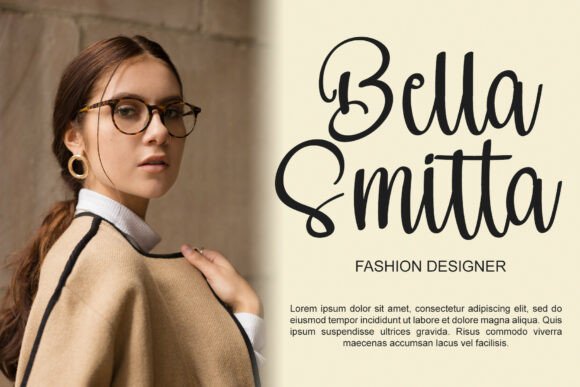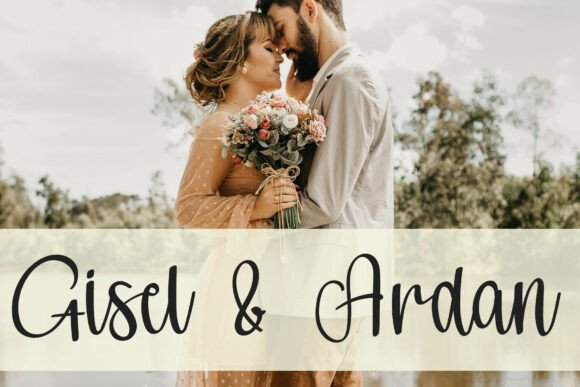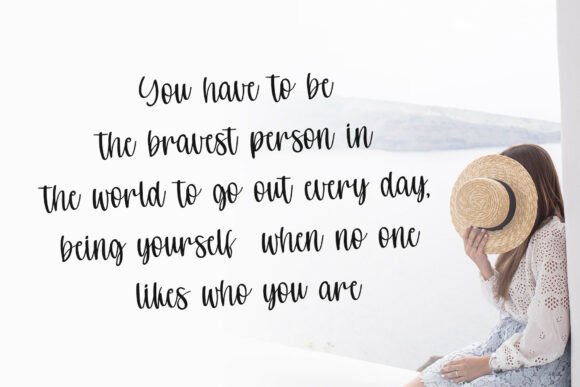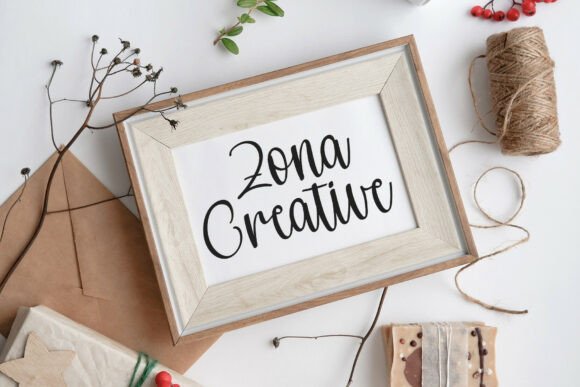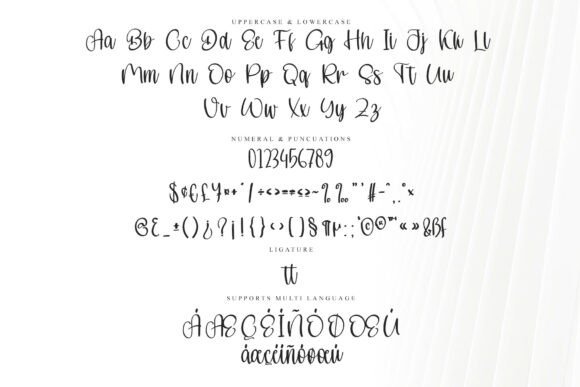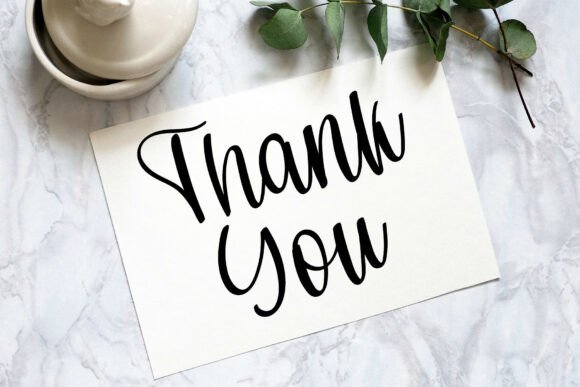
Introducing Buddy Signature Font: Elevate Your Designs with Elegance and Timelessness
In the world of typography, few fonts manage to strike a balance between elegance and boldness. Buddy Signature Font is one such exceptional typeface that seamlessly combines the fluidity of script handwriting with a bold, timeless vintage touch. This font is designed to make a statement, offering a sophisticated yet powerful impression that is perfect for a variety of design needs.
The Essence of Buddy Signature Font
Buddy Signature Font embodies the perfect blend of modern script and vintage charm. Its fluid strokes and graceful curves give it a dynamic flow that captures the eye. The boldness of the font ensures that it stands out, making it ideal for headlines, signatures, and any design element that requires a touch of class and authority.
Key Features of Buddy Signature Font
• Fluid Strokes and Graceful Curves: The font’s design is characterized by smooth, flowing strokes that give it a natural, hand-written feel. The graceful curves add to its elegance, making it perfect for designs that require a touch of sophistication.
• Dynamic Flow: The dynamic flow of Buddy Signature Font ensures that it captures the eye and retains attention. This makes it ideal for use in branding, advertising, and any other design element where visibility and impact are crucial.
• Bold and Timeless Vintage Touch: The font’s vintage touch gives it a timeless quality that ensures it will remain relevant for years to come. The boldness of the font makes it stand out, adding a level of authority and power to any design.
Use Cases for Buddy Signature Font
Buddy Signature Font is versatile and can be used in a variety of design projects. Here are some of the most effective use cases:
• Stylish Signatures: Whether you’re designing a personal logo or a professional signature, Buddy Signature Font adds a touch of elegance and sophistication. Its unique style ensures that your signature stands out and makes a lasting impression.
• Branding Design: For businesses looking to create a strong brand identity, Buddy Signature Font is an excellent choice. Its bold and timeless quality makes it perfect for logos, business cards, and other branding materials.
• Nostalgic Vintage Aesthetics: If you’re aiming for a vintage look in your designs, Buddy Signature Font delivers. Its classic touch and bold style evoke a sense of nostalgia, making it ideal for designs that require a retro feel.
Why Choose Buddy Signature Font?
Choosing Buddy Signature Font for your design projects offers several advantages:
• Elegance and Uniqueness: The font’s unique blend of script and vintage elements ensures that your designs stand out. Its elegance makes it suitable for high-end branding and personal projects.
• Versatility: Buddy Signature Font can be used in a variety of design contexts, from digital media to print. Its versatility makes it a valuable addition to any designer’s toolkit.
• Timeless Appeal: The font’s timeless quality ensures that your designs will remain relevant for years to come. This makes it a smart investment for businesses and designers looking for a long-term design solution.
Buddy Signature Font is a powerful and elegant typeface that combines the best of script handwriting with a bold, timeless vintage touch. Its fluid strokes, graceful curves, and dynamic flow make it perfect for creating sophisticated yet powerful impressions. Whether you need a stylish signature, a branding design, or nostalgic vintage aesthetics, Buddy Signature Font delivers elegance and uniqueness effortlessly. For designers and crafters looking to elevate their designs, Buddy Signature Font is an excellent choice.